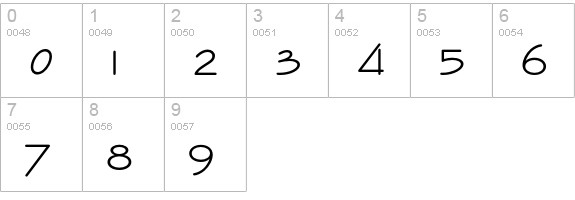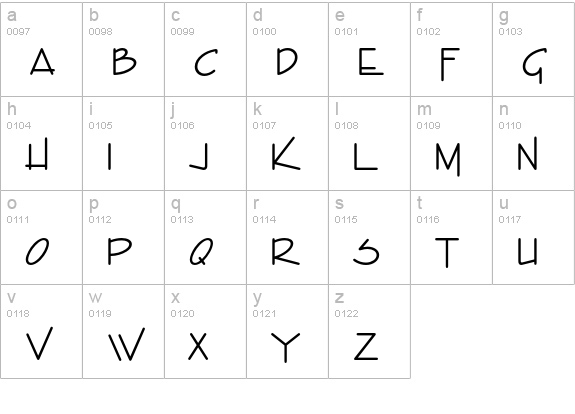
EnviroEF Font Details
EnviroEF is a stunning and eco-friendly font that embodies the essence of nature in its design. With its elegant curves and organic feel, this font is the perfect choice for projects related to sustainability, environmental awareness, and natural products. Whether you're working on a brochure for a conservation organization or designing packaging for an eco-friendly brand, EnviroEF will bring a touch of freshness and vitality to your designs. What's even better is that EnviroEF is completely free to download at FontsMarket.com. This means you can easily access this beautiful font without any cost, making it a great choice for designers on a budget or anyone looking to add a touch of green to their projects. So go ahead and give EnviroEF a try - let your designs bloom with the beauty of nature!